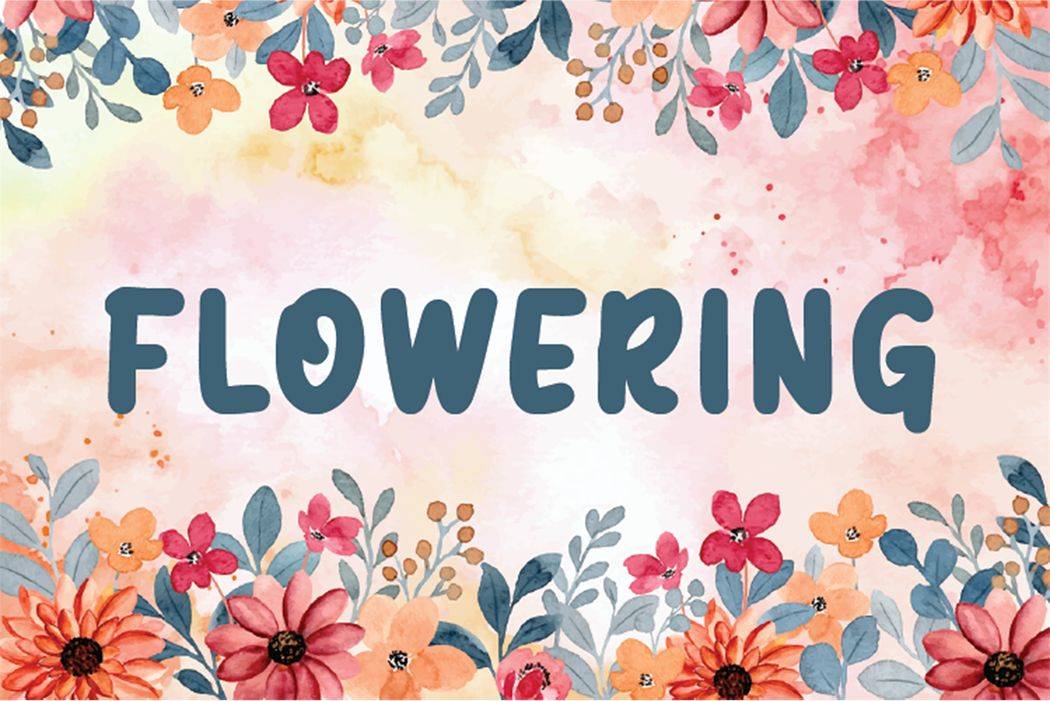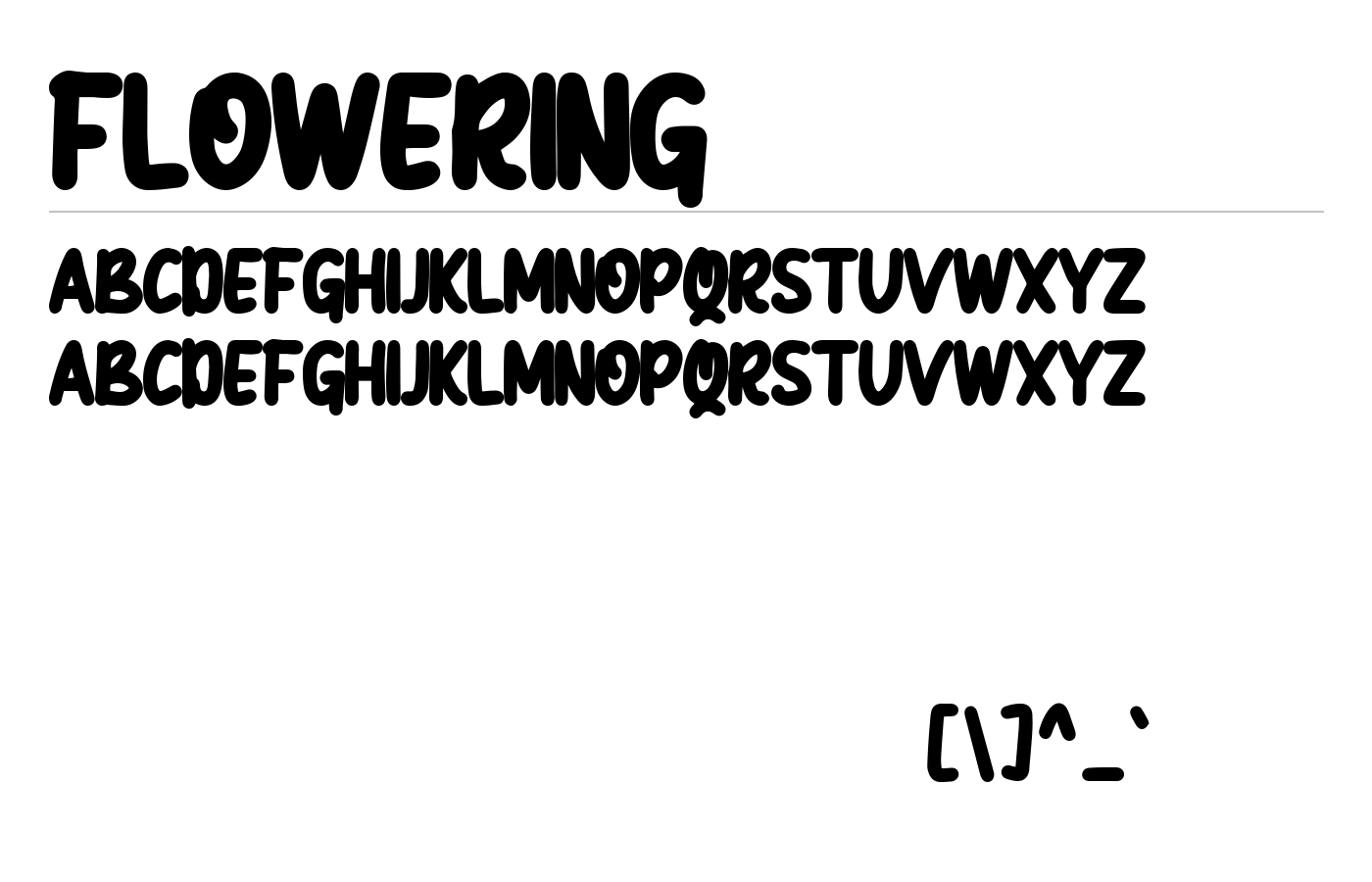
Flowering Font is a bold, playful sans serif typeface with a chunky, hand-drawn feel that brings a fun and casual vibe to any design. Its rounded, irregular letterforms and tight spacing make it perfect for eye-catching headlines, logos, and creative projects that want to convey friendliness and approachability. This font works especially well for informal branding, children’s materials, and creative posters where a lively, cheerful mood is desired.
Flowering Font
About Flowering Font
| Font family | Flowering Font |
| Designer | Lady Hanna |